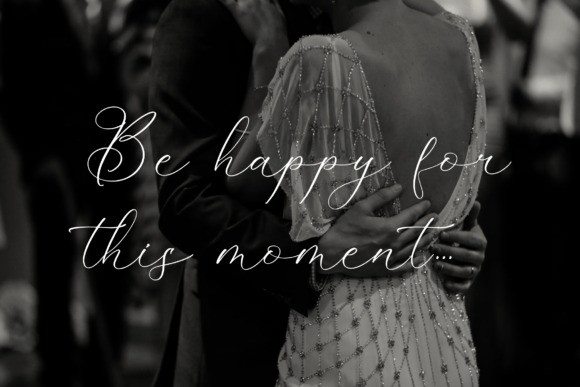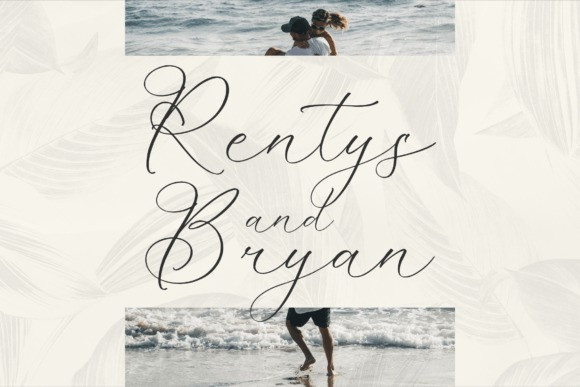
Kelarhisa Sokrate Font
Kelarhisa Sokrate Font is a luxury script font that has its own unique style & modern look. This typeface is perfect for an elegant & luxurious logo, book or movie title design, fashion brand, magazine, clothes, lettering, quotes, and so much more.